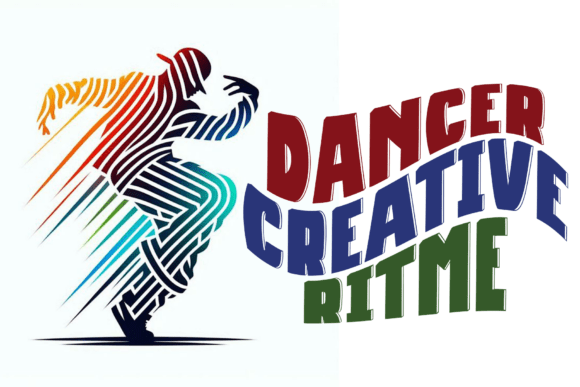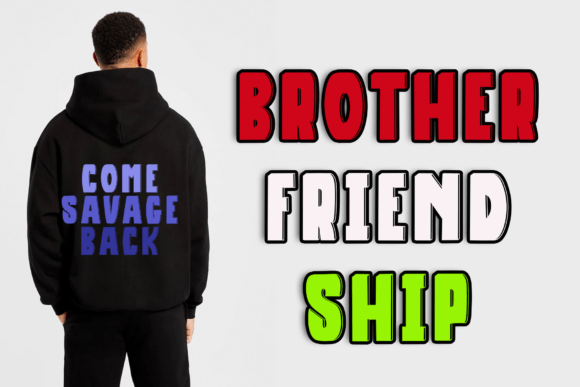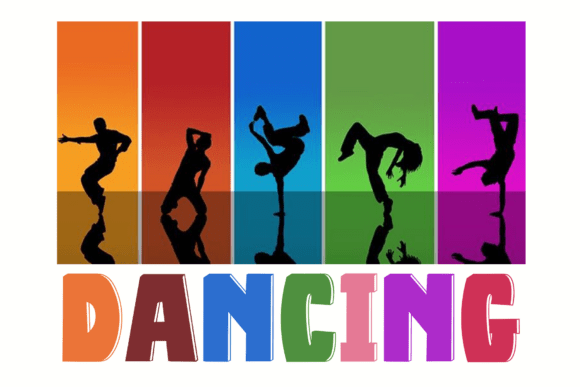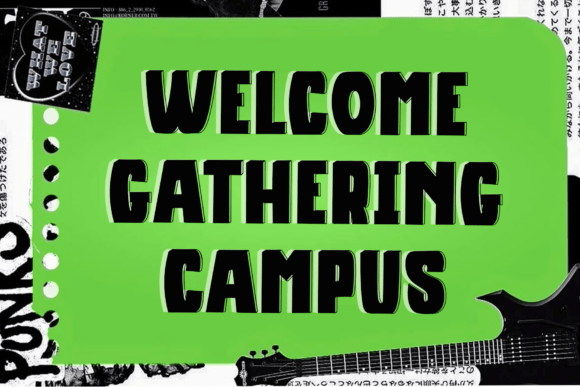
Get Ready to Groove with the Perfect Font for Your Next Design Project
Remember that moment when you stumbled upon the perfect font that just made your design come alive? You know, that instant when you feel like you’ve found a long-lost friend who just gets you? That’s what we’re about to share with you today – a font that’s sure to become your new BFF in the design world. Introducing Break Dance Font, a delightful display font that’s perfect for adding a touch of modern handwritten charm to your branding, headlines, and packaging designs.
What sets Break Dance Font apart is its unique blend of simplicity and approachability, making it a valuable addition to any designer’s toolkit. With its clean lines, balanced letterforms, and subtle rounded edges, this font is sure to deliver clarity and charm in equal measure. Whether you’re working on a digital project or a print design, Break Dance Font is the perfect partner to help you create designs that truly pop.
Break Dance Font Key Features
- Font Family: Break Dance Font is a display font designed for titles and headings, with a unique graffiti-inspired style.
- Unique Characteristics: The font features a bold, dynamic style with a mix of geometric and organic elements, making it perfect for adding a touch of urban flair to designs.
- Kerning and Glyphs: Break Dance Font includes advanced kerning and glyph sets, ensuring that the font looks great in a wide range of contexts and languages.
Break Dance Font Review
I recently had the chance to work with the Break Dance Font, and I must say it’s an interesting combination of styles. ✨ The font’s primary asset is its unique, energetic feel, which is reminiscent of the breakdancing culture it’s named after. It’s perfect for designers looking to add a touch of nostalgia or edginess to their projects.
- ✨ The font’s bold, playful feel makes it great for titles and headings.
- ✨ The Break Dance Font works well in combination with other bold, graffiti-inspired fonts.
- ✨ It’s perfect for designers looking to create a retro or urban aesthetic.
However, there are some limitations to keep in mind: ⚠️ The font’s bold style can be overwhelming if used excessively, and it may not be suitable for all types of projects. Additionally, the font’s character set is limited, which could be a problem for designers who need to use it for complex text-based projects.
Overall, I’d say the Break Dance Font is a great addition to any designer’s toolkit, but it’s not a one-size-fits-all solution. With its unique style and energetic feel, it’s perfect for designers who want to add a touch of excitement to their projects. Just be mindful of its limitations, and use it in moderation.
Break Dance Font is ideal for:
1. Creating bold, eye-catching headlines.
2. Adding a touch of street culture to your designs.
3. Creating unique, hand-written style text.
4. Adding visual interest to your social media posts.